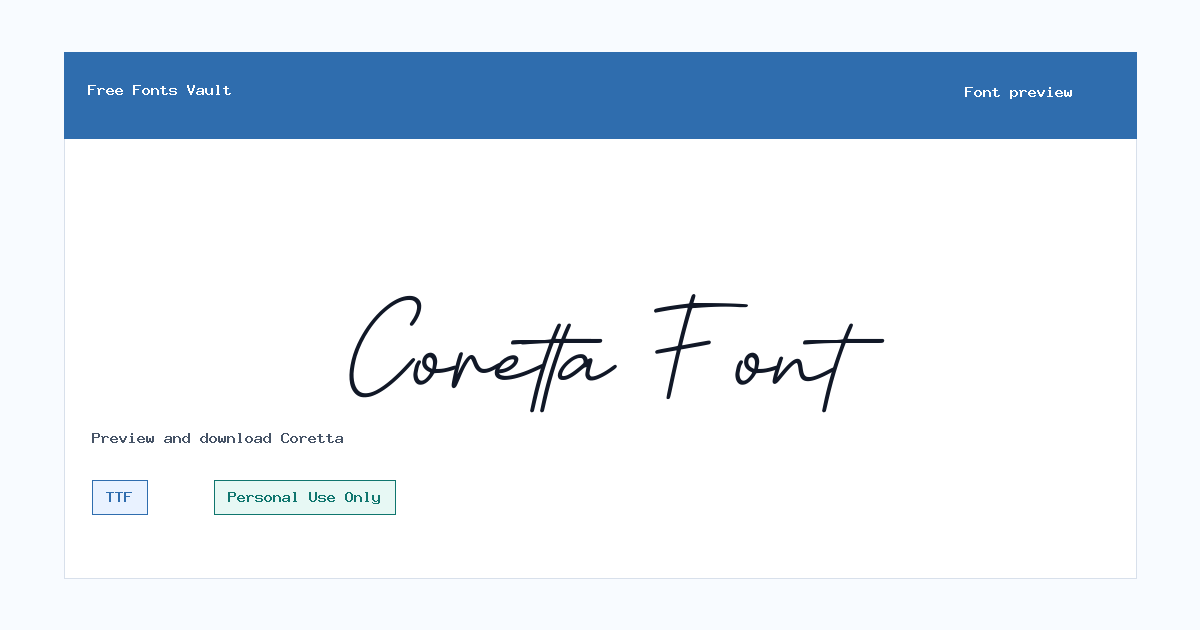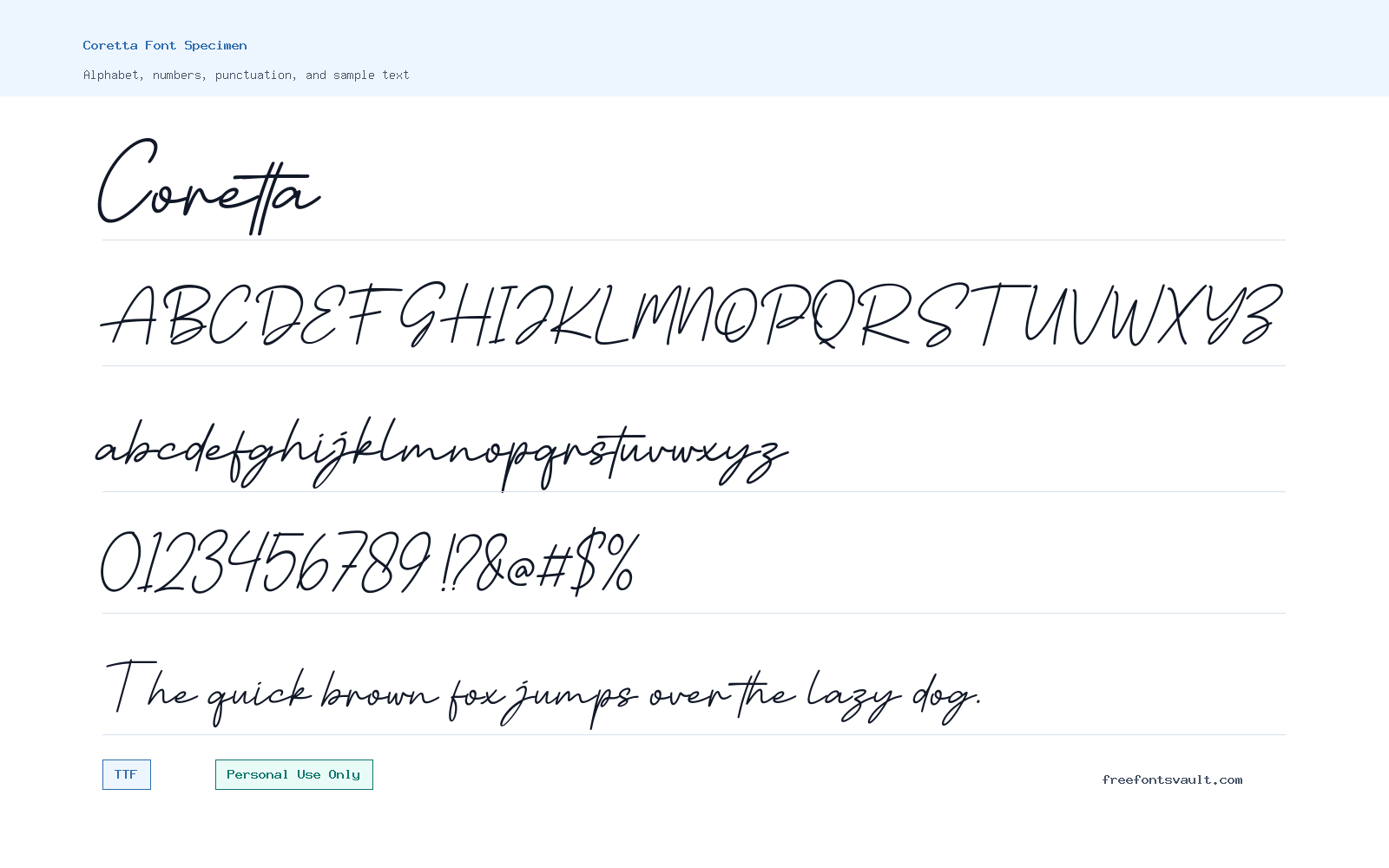
Coretta
Coretta Font
• Designer Nandini Febriyanti
• Foundry Funtype Co.
Coretta is a personal-use signature script font with an italic handwritten style. It is suited to short, expressive text where a smooth, personal look matters more than long-form readability.
About Coretta Font
Coretta works best as a display font rather than a body-text font. Its script style gives words a handwritten, signature-like feel, making it a natural choice for names, short titles, social graphics, invitation headings, packaging mockups, and logo concepts. Because the font is italic and decorative, it should be used with care at small sizes. Test your exact text in the preview area before downloading, especially if your design uses long words, all caps, or tight spacing.
For design work, Coretta can add a softer and more personal tone to a layout. It may work well for boutique branding drafts, wedding-style stationery, beauty or fashion mockups, greeting cards, quote posters, and portfolio concepts. Pair it with a simple sans serif or a quiet serif so the script remains the main accent. Avoid using several decorative fonts together, because that can make the design feel busy and harder to read. If you are preparing a logo, product label, client presentation, ad, or website design, check the license terms first, since the listed license is Personal Use Only.
• Italic signature script style with a handwritten display feel
• Best suited for short titles, names, headings, and decorative accents
• Works well as a contrast font beside clean sans serif or simple serif typefaces
• Signature-style names and wordmarks for personal projects
• Invitation headings, greeting cards, and quote graphics
• Poster titles, social media images, and mood boards
• Branding mockups and logo concepts during non-commercial testing
• Beauty, fashion, boutique, and lifestyle design drafts
Coretta is credited to designer Nandini Febriyanti and foundry Funtype Co.
What kind of font is Coretta?
Coretta is an italic signature script font. It is designed for display use, especially short text that needs a handwritten or personal look.
What should I pair with Coretta?
Pair Coretta with a clean sans serif or a simple serif. Let Coretta handle the expressive words, and use the supporting font for details, captions, dates, or longer text.
Is Coretta good for paragraphs?
No. Coretta is better for short display text. For paragraphs, choose a readable serif or sans serif and use Coretta only for headings or accents.